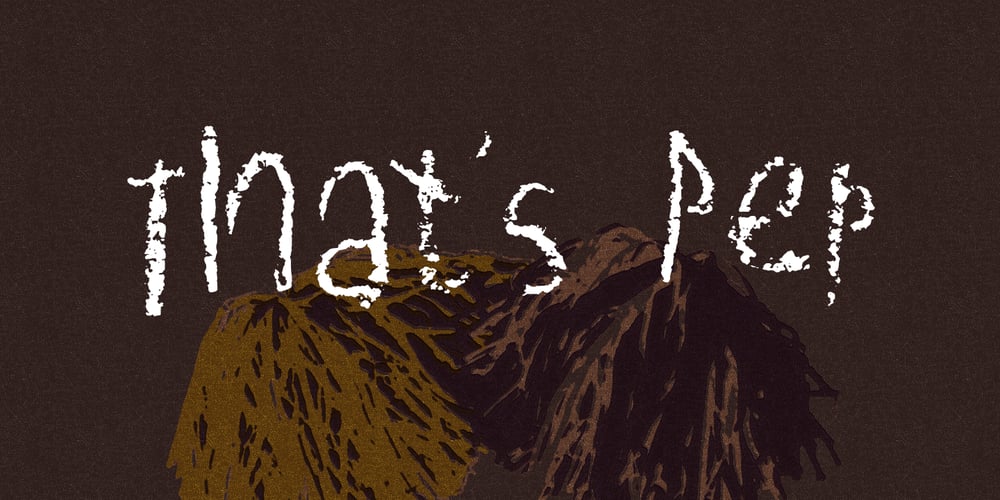
Jacky Hand Font Family was designed by Dathan Boardman and published by Open Window. Jacky Hand contains 1 styles and family package options. Jacky Hand is a waxy new font totally drawn by my 6 year old son while practicing his handwriting. This is a totally diverse font perfect for a wide range of uses from horror posters to childlike naiveté, or to inject some preppy school spirit.